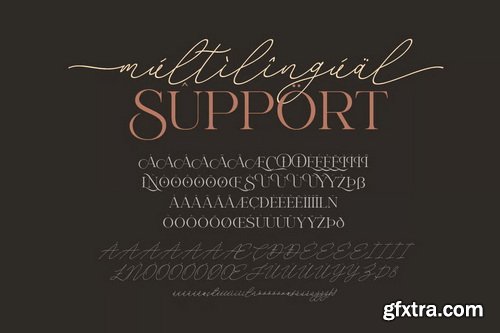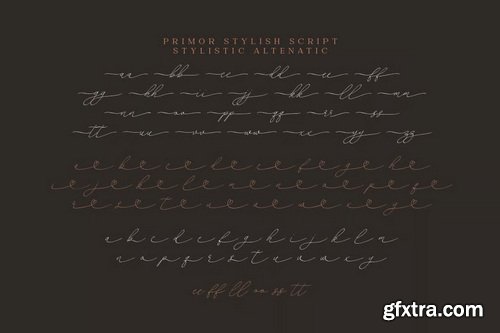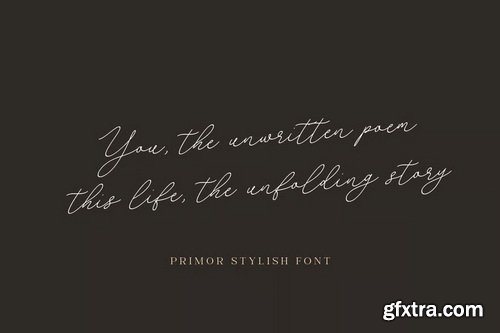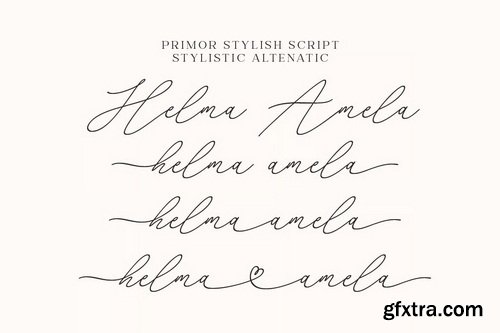
- Discover timeless elegance and refined luxury in every letter with Primor Stylish, a premium font collection designed for designers, creatives, and brands who value sophistication and style. Combining classic beauty with modern features, Primor Stylish offers a versatile trio of luxury serif, italic serif, and handwritten signature script fonts to elevate any high-end design project.
- Whether you're designing for luxury branding, wedding stationery, fashion editorials, or upscale packaging, Primor Stylish brings a polished and graceful look with professional-level features and stunning customizability.
Primor Stylish Serif – Timeless & Elegant Primor Stylish Script – Signature & Romantic